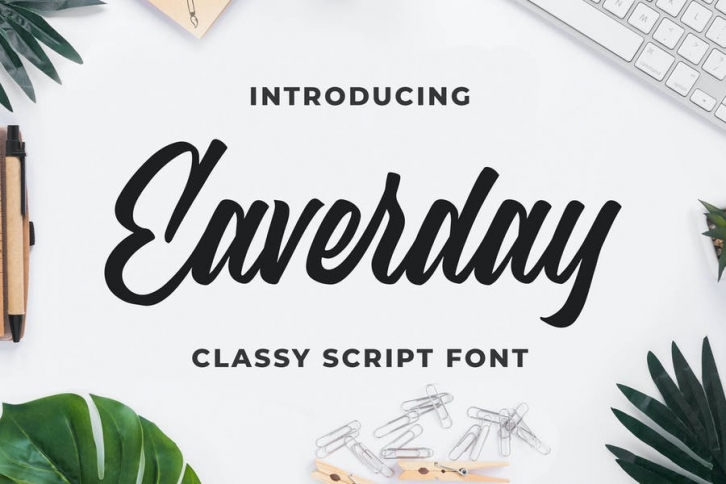
Introducing of our new product the name is Eaverday Classy Script Font. Eaverday inspired by script calligraphy this font is a fun theme very good for logotype, branding, apparel, clothing, poster and etc
MULTILINGUAL ACCENT :
ØÆøæ¢ÃÅ’Å“ÃÄ‚Ã‚Ã€Ã„Ä„Ã…ÃƒÇ¼Ä†ÄŒÃ‡ÄˆÄŠÄŽÃ‰Ä”ÄšÃŠÃ‹Ä–ÃˆÄ˜ÄžÄœÄ¢Ä Ä¤ÃĬÎÃİÌĮĨĴĶĹĽĻĿŃŇŅÑÓŎÔÖÒÅǾÕŔŘŖŚŠŞŜȘŤŢÚŬÛÜÙŰŲŮŨẂŴẄẀÃŶŸỲŹŽŻáăâäà ąåãǽćÄçĉċÄéĕěêëėèęğÄģġĥÃîïìįĩĵķĺľļŀńʼnňņñóÅôöòőǿõŕřŗśšşÅșťţÅûüűùųůũẃŵẅáºÃ½Å·Ã¿á»³ÅºÅ¾Å¼